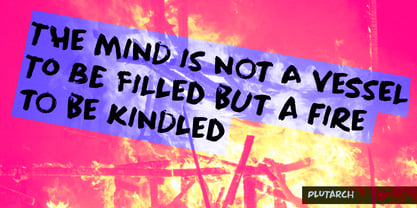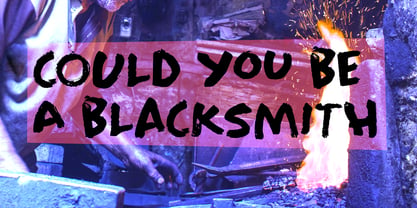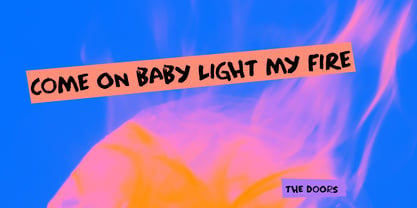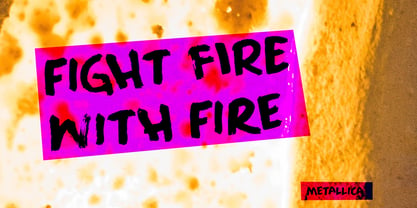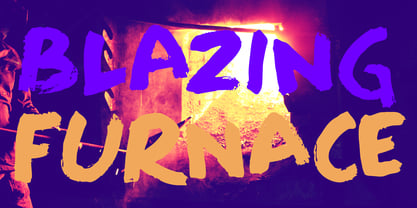
Blazing Furnace Pro
by Hanoded
The Blazing Furnace Pro Font Family was designed by David Kerkhoff and published by Hanoded. Blazing Furnace Pro contains 2 styles and family package options. More about this family
At home we have a wood stove. Last year, I bought a whole bunch of tree trunks, which I cut up with a chainsaw and then chopped with my Swedish axe. In Holland we have a saying that firewood keeps you warm three times: when you cut the tree, when you chop the wood and when you burn it in the stove. Our stove is rather small, so it is not exactly a blazing furnace, but I liked the name because it seems to fit this font.
Blazing Furnace was made with ink and a brush. It is a bit messy and rough, but it comes with multilingual support and a nice set of alternates for the lower case letters.
Hanoded is run by Dutchman David Kerkhoff. His fonts are a mishmash of styles, as he just creates whatever pops into his head. You will find a lot of brush fonts in his collection, as his favourite tools are brushes and Chinese ink, with cartoon style fonts and script fonts complementing his repertoire. Aside from making fonts, David occasionally guides tours in far-flung places, renovates his '30's house and tries reasoning with his wife and (teenage) kids. Not an easy task!